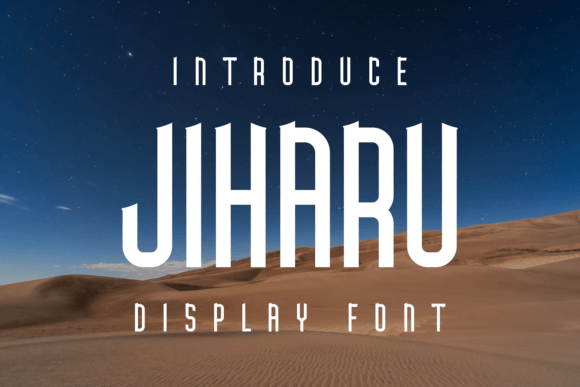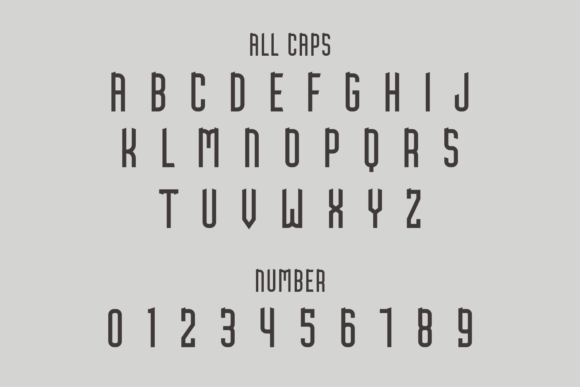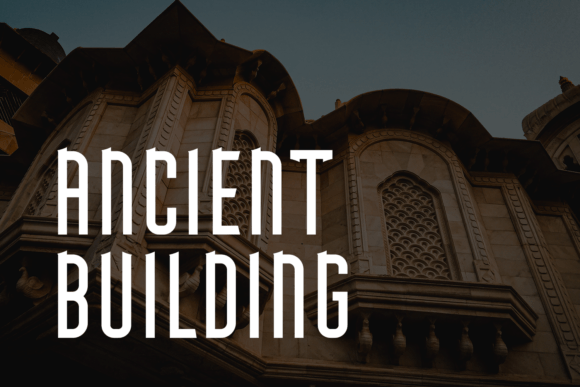
Discover the Power of Jiharu Font: Elevate Your Creations
Have you ever stared at a blank page, feeling like your creativity is stuck in neutral? You know, that moment when all you want to do is express yourself, but the words just won’t come. It’s a feeling we’ve all experienced at some point in our lives, but what if I told you there’s a way to break free from that creative block and unleash your full potential?
Meet Jiharu Font, a sleek and modern display font that’s about to become your new best friend. Whether you’re a seasoned designer or just starting out, this versatile font is the perfect addition to your toolkit. With its clean lines and sophisticated vibe, Jiharu Font has the power to elevate any project, giving it that extra oomph that sets it apart from the rest.
Jiharu Font Key Features
- Unique Characteristics: Jiharu Font features a unique blend of traditional and modern design elements, resulting in a distinctive and eye-catching appearance.
Jiharu Font Review
At first glance, the Jiharu Font seems like a beautiful addition to any design project. ✨ Its unique blend of traditional and modern elements gives it a distinctive feel that’s hard to find elsewhere. The font’s intricate details and elegant lines make it perfect for luxury or high-end branding.
One of the standout features of the Jiharu Font is its versatility. ✨ It comes in a wide range of weights and styles, making it easy to use in a variety of contexts. From body text to headings, the Jiharu Font is sure to impress. Additionally, its open-source nature means that it’s free to use and distribute, making it an excellent choice for designers on a budget.
- ⚠️ The Jiharu Font can be quite dense, making it difficult to read at smaller sizes.
- ⚠️ Some users may find the font’s complexity overwhelming, making it harder to pair with other typography.
Overall, I’m impressed with the Jiharu Font’s unique design and versatility. While it may have some limitations, its benefits far outweigh its drawbacks. If you’re looking for a luxurious and elegant font for your next design project, the Jiharu Font is definitely worth considering.
Tips for Getting the Most Out of Jiharu Font
Use Jiharu Font for titles, headings, and emphasis to add visual interest to your designs.
Experiment with different font sizes and styles to create a unique look.
Pair Jiharu Font with other fonts to create a harmonious typography.
Common Use Cases for Jiharu Font
Use Jiharu Font for:
Business cards and stationery
Marketing materials and brochures
Web design and e-commerce
Alternatives to Jiharu Font
Jiharu Font is a modern sans-serif font known for its clean lines and versatility. However, it may not be suitable for every project. Here are a few alternatives:
Montserrat Font is a geometric sans-serif font designed for urban environments. It’s ideal for use in digital interfaces, signage, and other applications where a modern and sleek look is desired. Compared to Jiharu Font, Montserrat has a more geometric feel and is better suited for headings and titles.
Lato Font is a modern sans-serif font that’s highly legible and suitable for both on-screen and print use. It’s a great choice for body text, as it’s clear and readable even at small font sizes. Compared to Jiharu Font, Lato has a more rounded feel and is better suited for general use, such as in articles and blog posts.